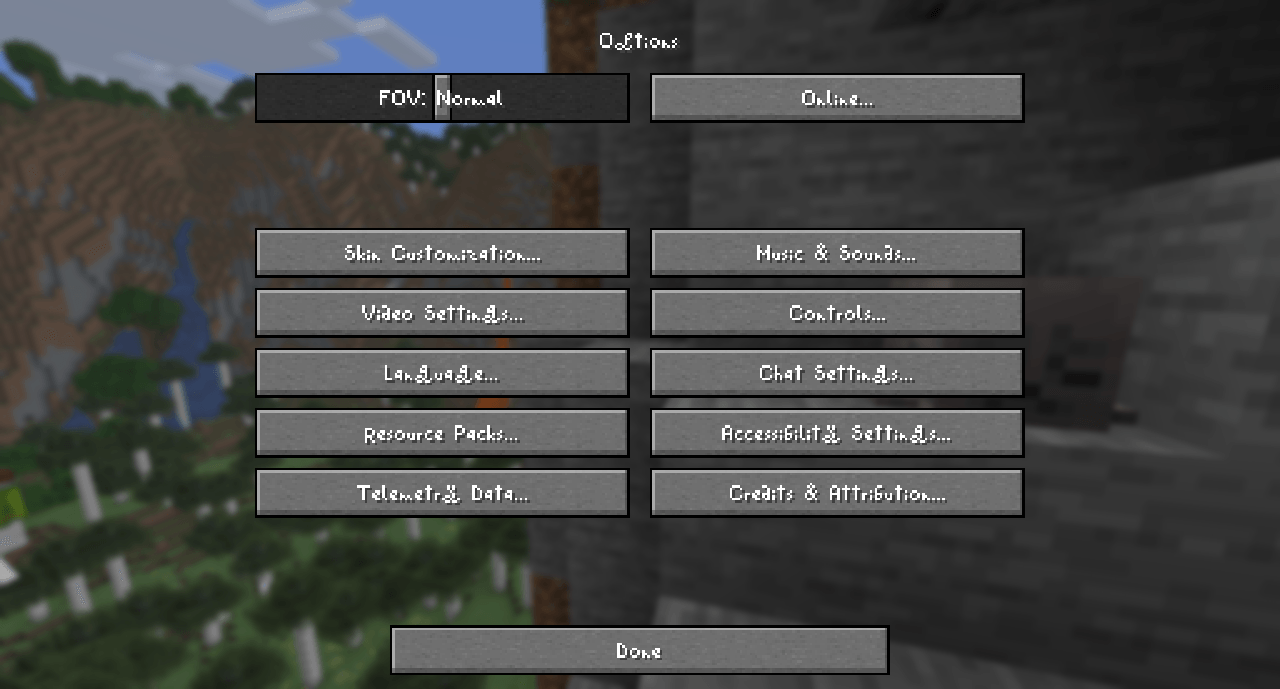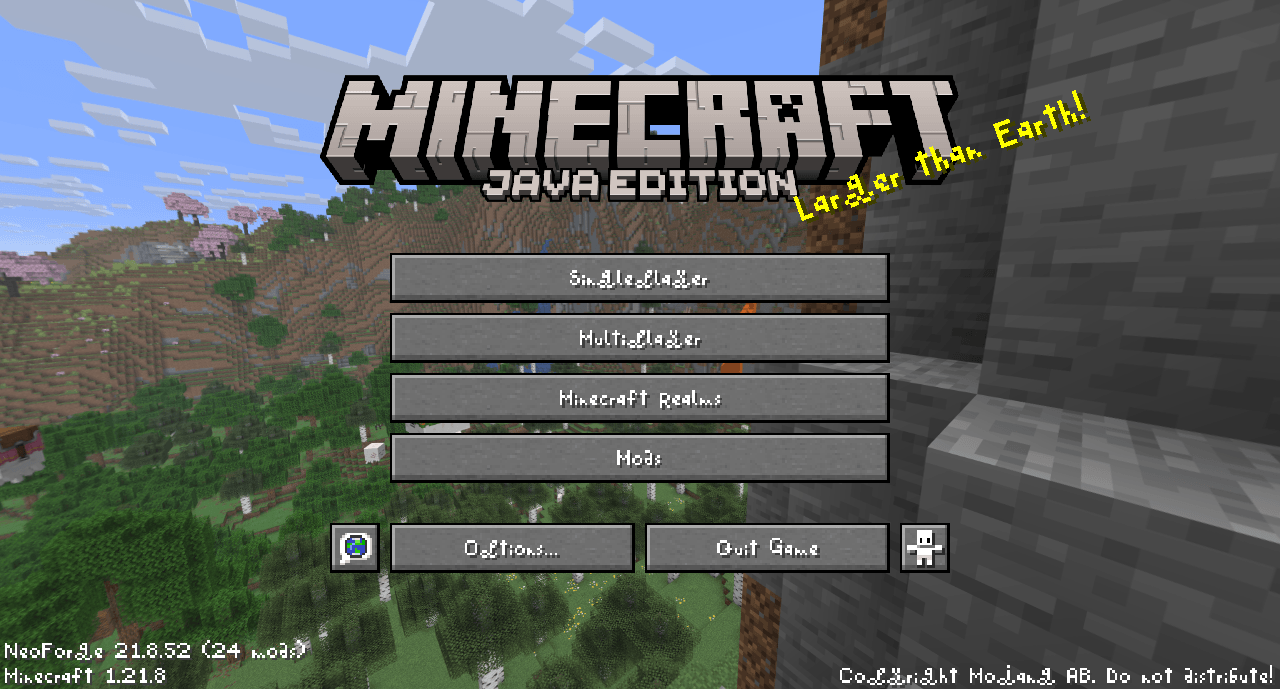
Dragons1019367's Calligraphy Font
A custom font for minecraft that resembles calligraphy! Supports English, Spanish and Greek Alphabets!
This is a simple resource pack that changes the in-game font to one that looks more like calligraphy/handwriting. It has a very different feeling than the standard font. Supports English, Spanish and Greek symbols, as well as the following extra letters:
Ð ð (Eth)
Þ þ (Thorn)